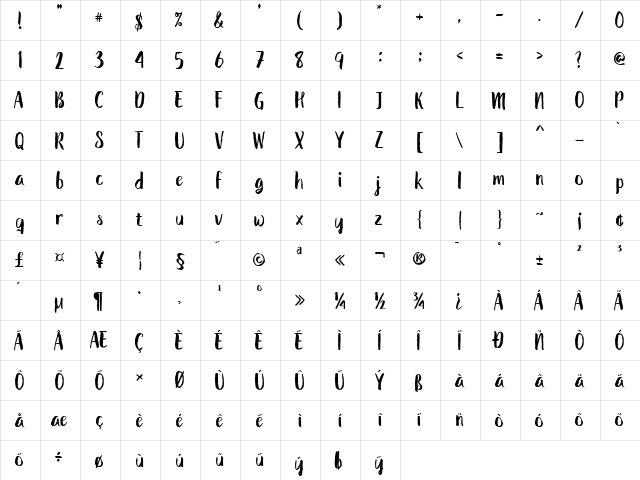
The Shutterain Regular
| Foundry | Colllab Studio |
| Designer | Didi Syarif (Walkeren) |
Design Context for The Shutterain Typeface
The Shutterain is a composed and adaptable typeface that performs quietly and consistently across a wide range of design contexts.
Pro Tip: Pair The Shutterain with a font of contrasting weight or personality to build a more expressive typographic hierarchy.